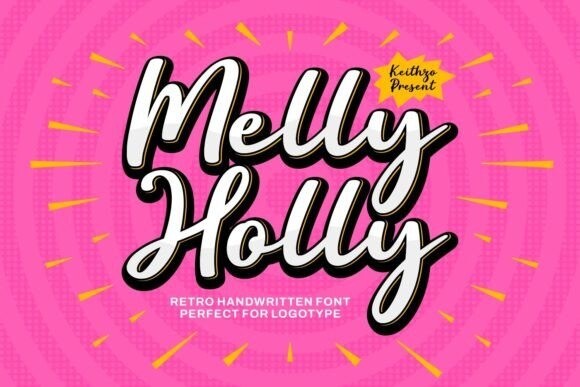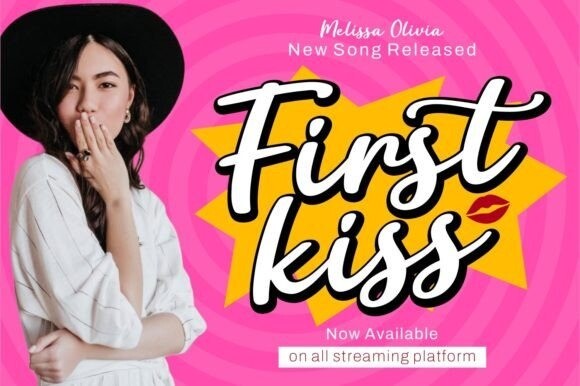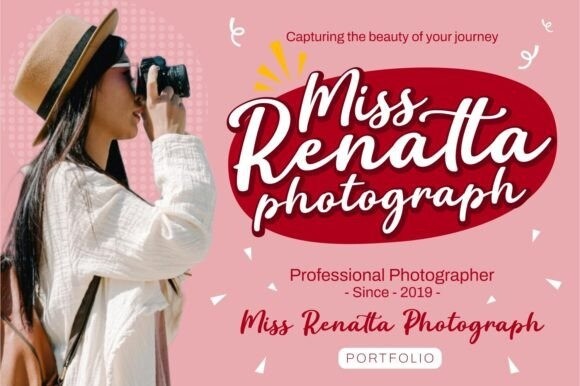
Melly Holly Font
Melly Holly is a cursive and modern handwritten font suitable for your most creative ideas. It will look amazing on product packaging, watermarks on photography, logos, business cards, or anything that needs classy and natural typography.